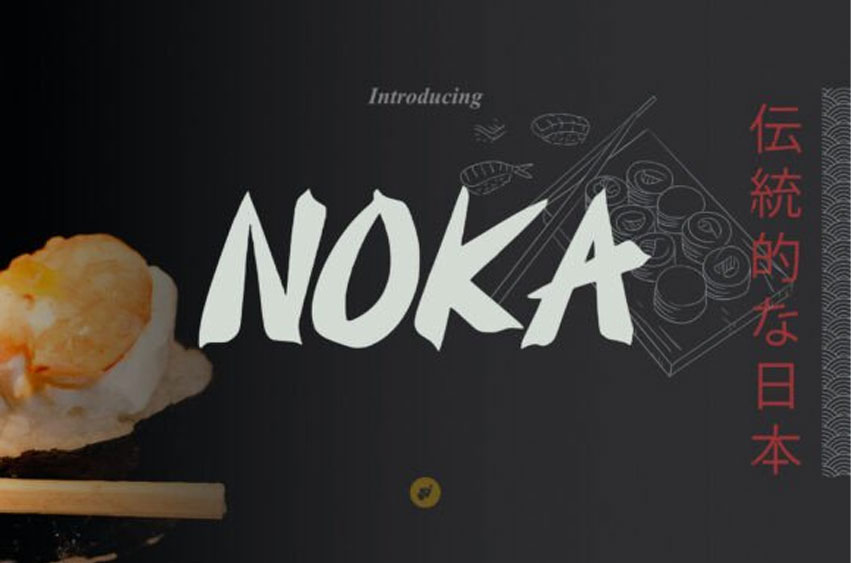
Noka Regular Font
Noka Regular Font is a brush font that draws its inspiration from the timeless art of traditional Japanese calligraphy (shodō), delivering a bold, dynamic, and deeply authentic aesthetic. Its thick, expressive strokes embody the essence of Japanese culture—rich in character, strength, and spirited elegance.
Perfectly suited for: Japanese restaurant logos, souvenir shops with a Japanese theme, product branding rooted in Japanese style, posters for cultural or traditional Japanese events
With its bold, hand-rendered letterforms, this font offers a distinctive and immediately recognizable visual identity. It captures the essence of oriental tradition while maintaining a modern appeal, making it ideal for designs that seek to balance heritage with contemporary flair.